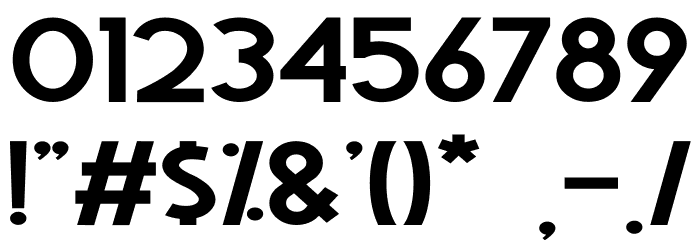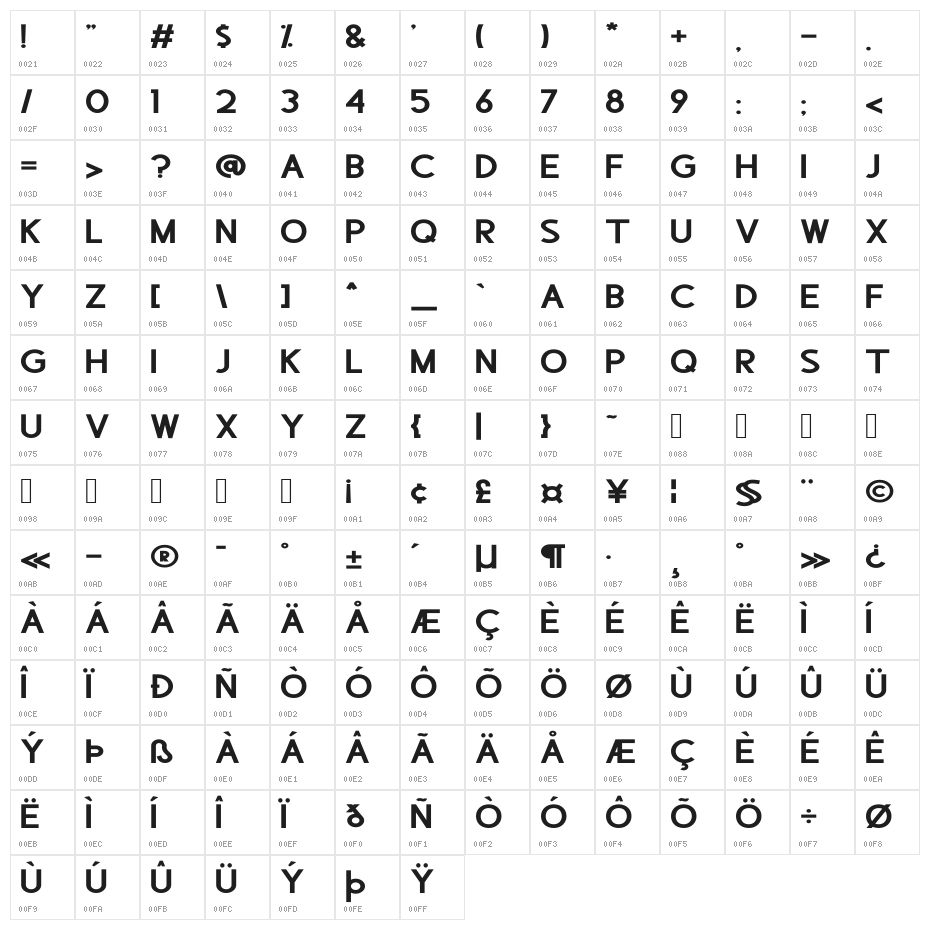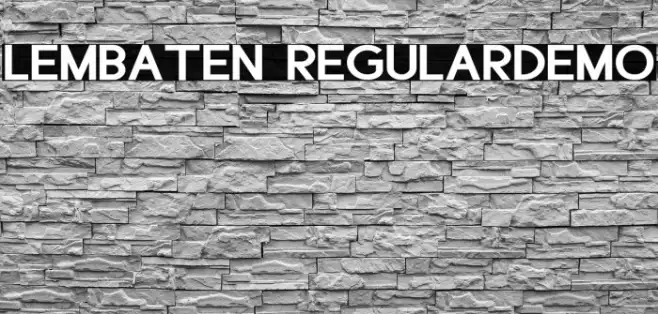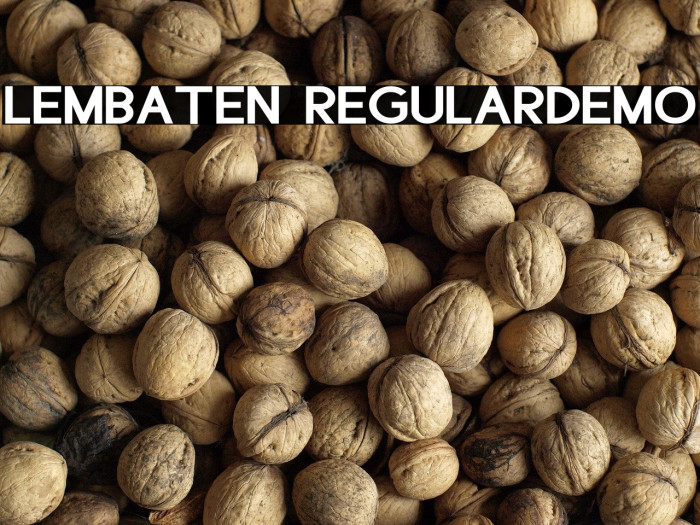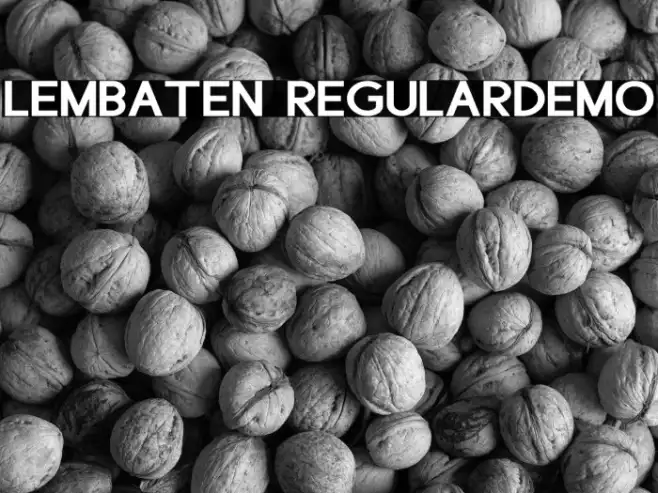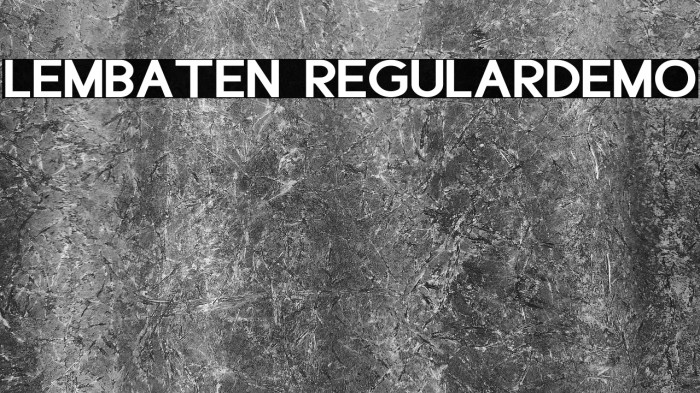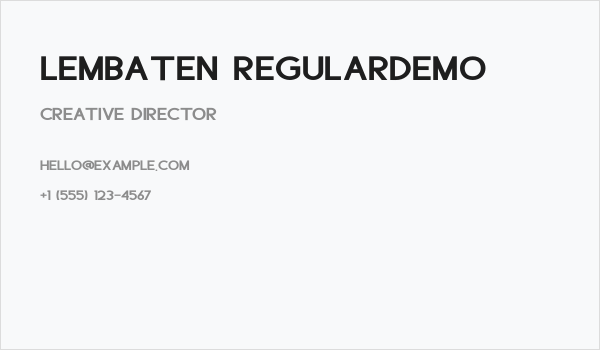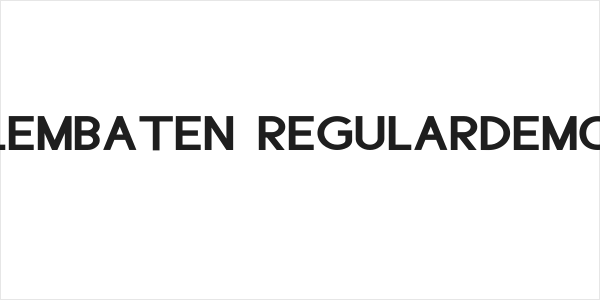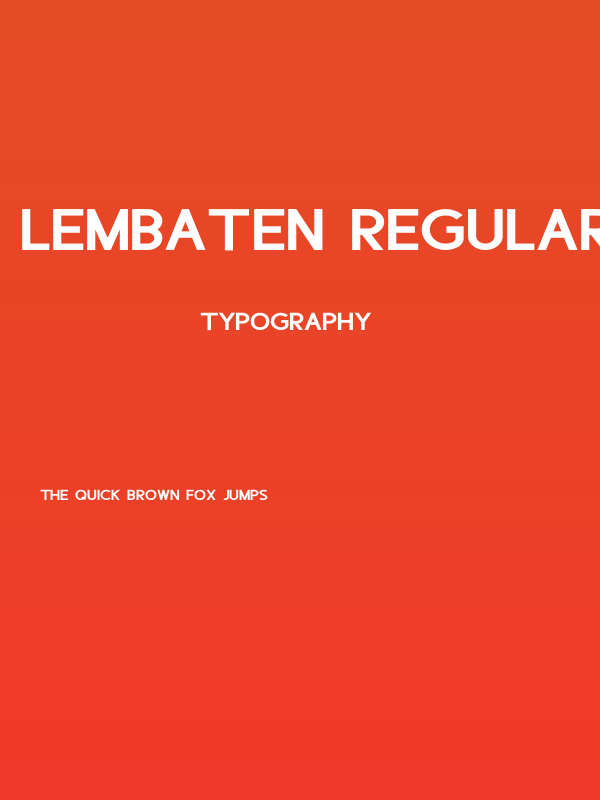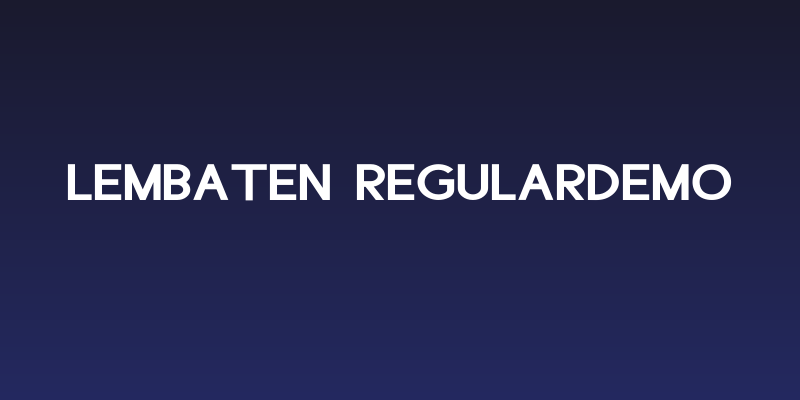
Lembaten RegularDemo Font
Lembaten RegularDemo Description
This font features a bold and modern sans-serif style with clean, geometric lines. The uppercase letters are uniform in height, providing a strong and cohesive appearance. The lowercase letters maintain a similar geometric structure, ensuring readability and consistency. The numerals are well-proportioned, aligning perfectly with the overall aesthetic. Special characters are designed to complement the primary alphabet, offering versatility for various design needs. The font's simplicity and clarity make it suitable for a wide range of applications, from digital to print media.